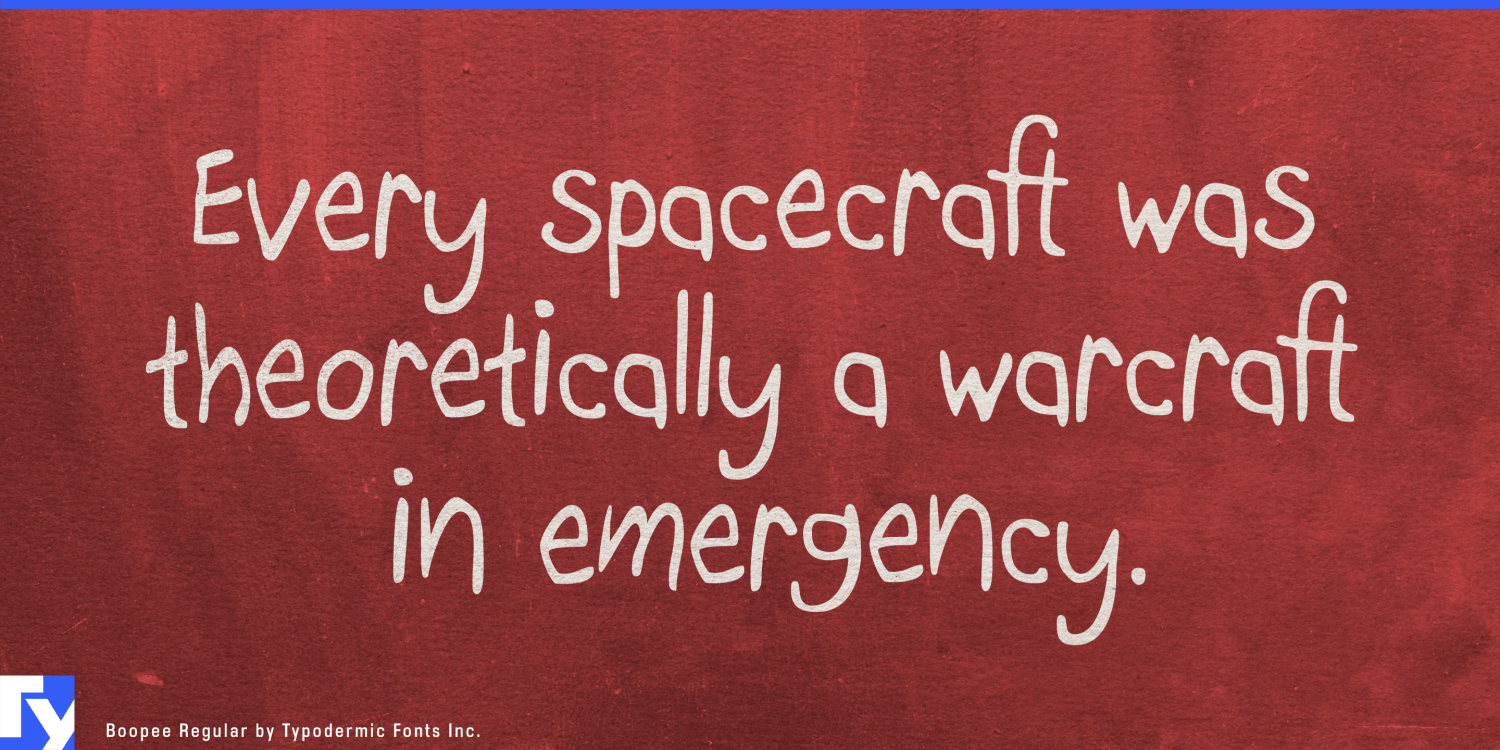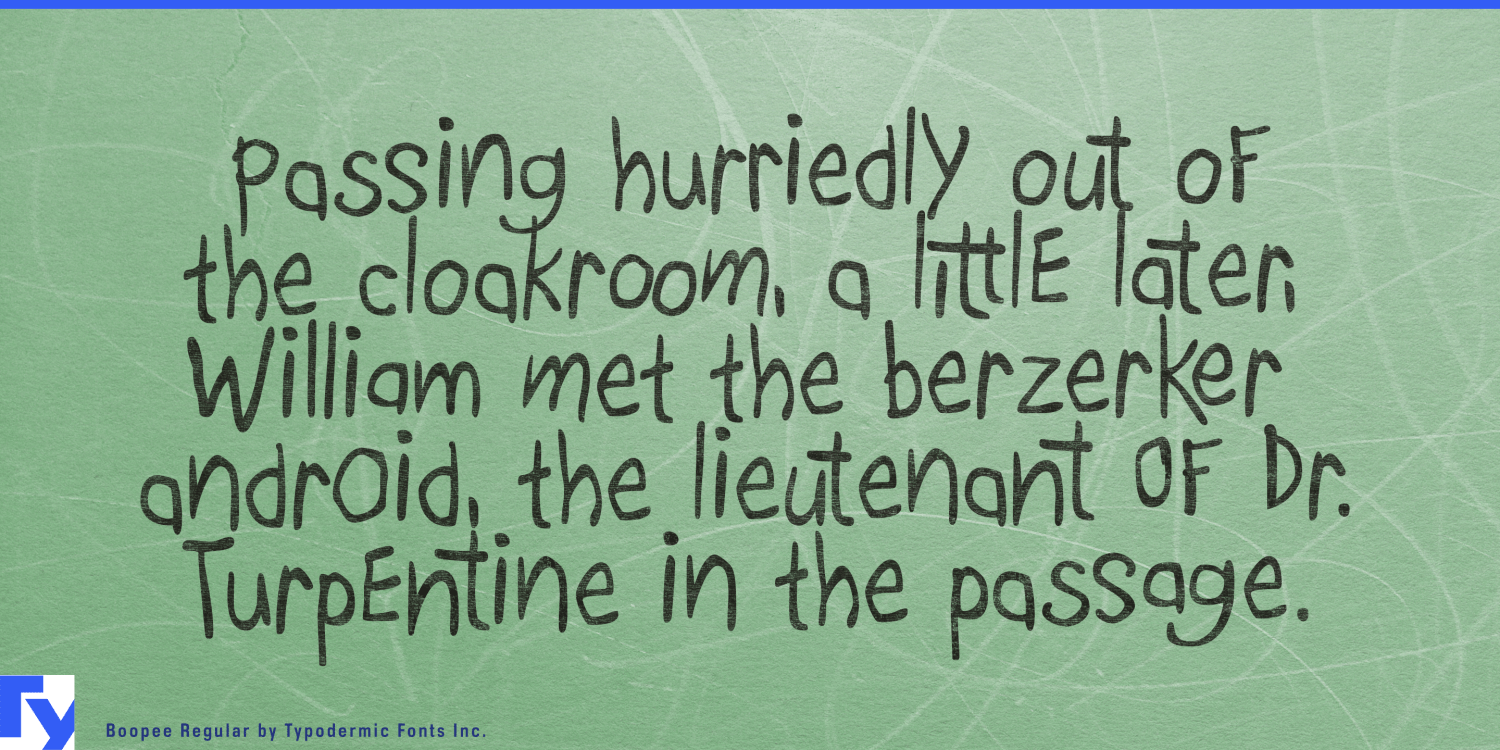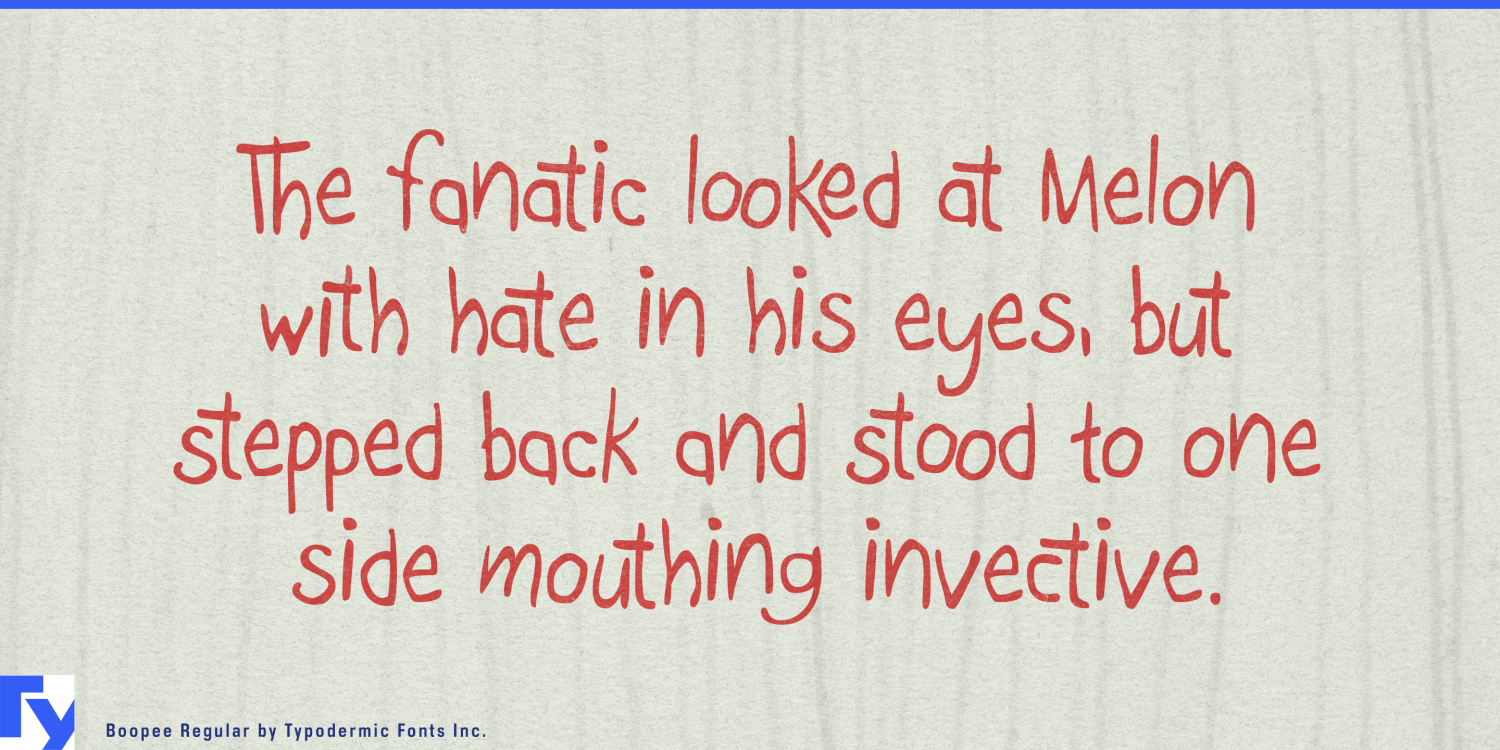
About Boopee
Introducing Boopee, a typeface that celebrates the beauty of imperfection. In a world obsessed with flawlessness, Boopee dares to be different, offering a refreshing blend of charm, personality, and unexpected elegance. At first glance, Boopee’s…